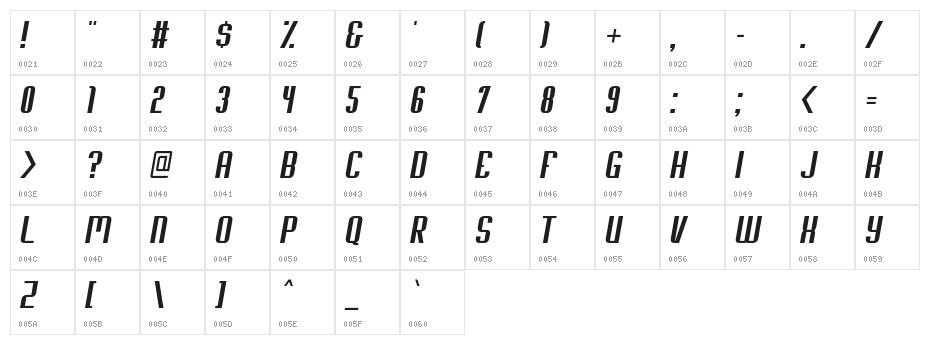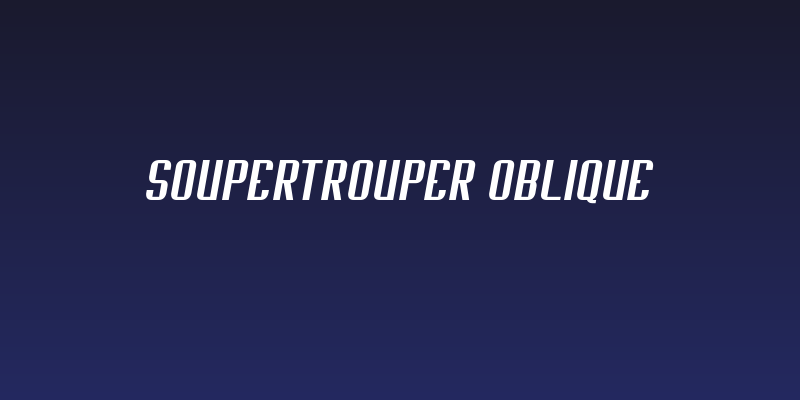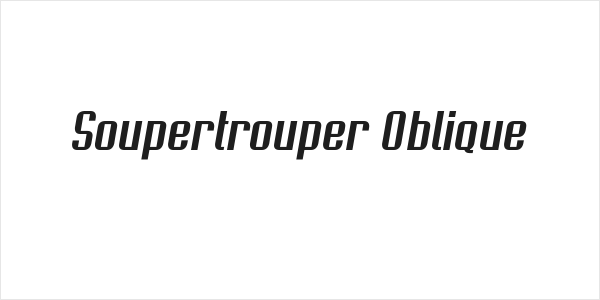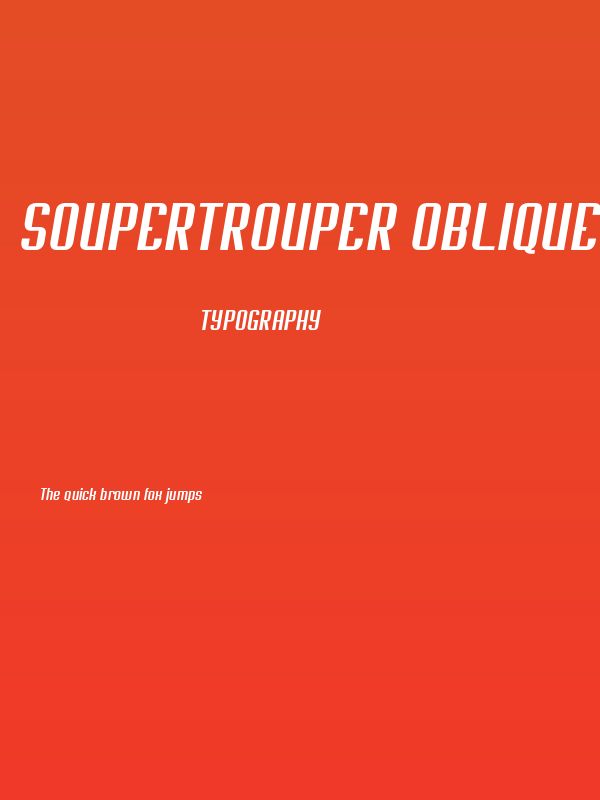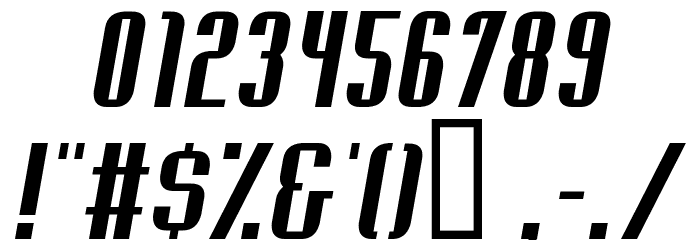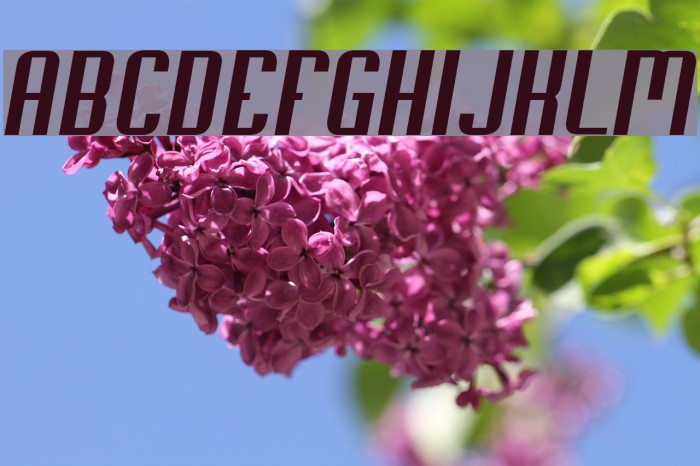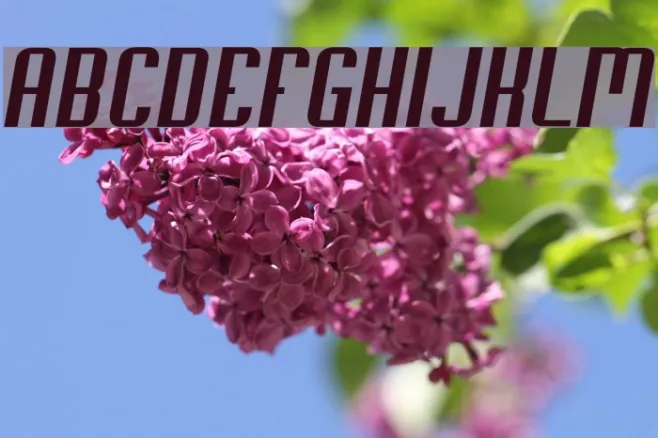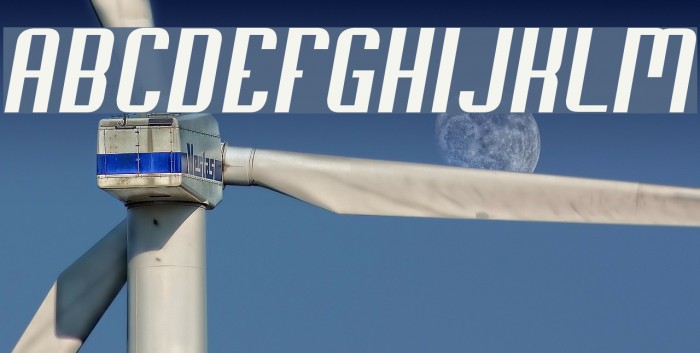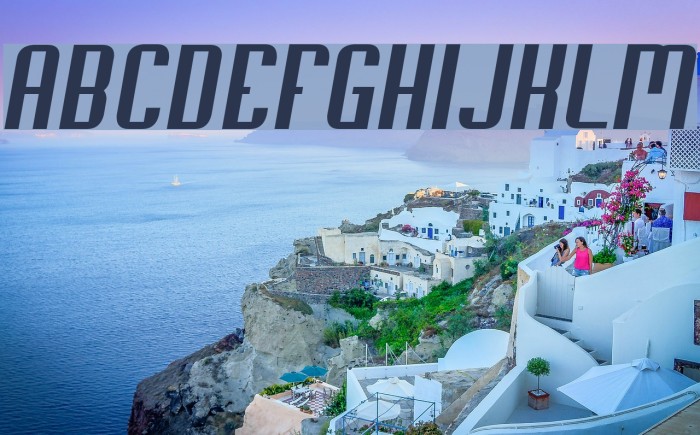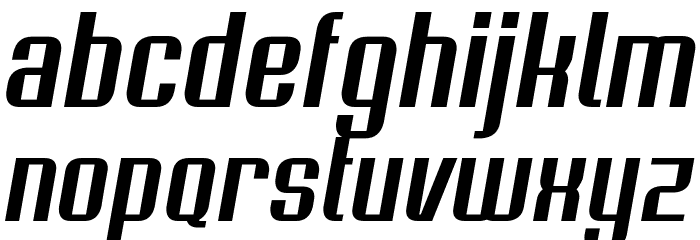
Soupertrouper Oblique Font
Soupertrouper Oblique Description
This font features a dynamic and modern oblique style with a strong geometric influence. The characters are slightly condensed, giving a sleek and streamlined appearance. The uppercase letters are bold and assertive, while the lowercase letters maintain a consistent flow with a slight slant, enhancing the font's energetic feel. The numerals are clear and distinct, matching the overall aesthetic. Special characters are well-integrated, maintaining the font's cohesive look. The stroke contrast is low, providing a uniform thickness throughout, which contributes to its modern and professional appeal.
| Width | Condensed |
| Use Case | Logos, Headlines |
| Proposed Projects | Ideal for branding, sports team logos, dynamic posters, and modern web design. |